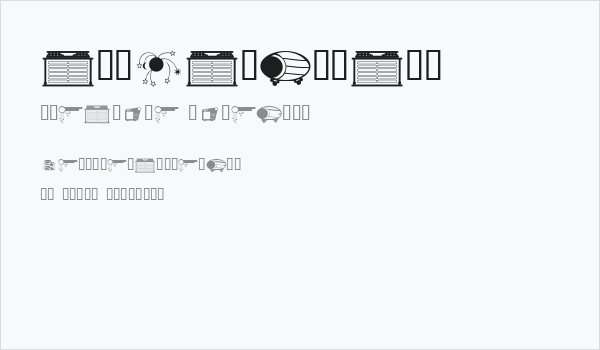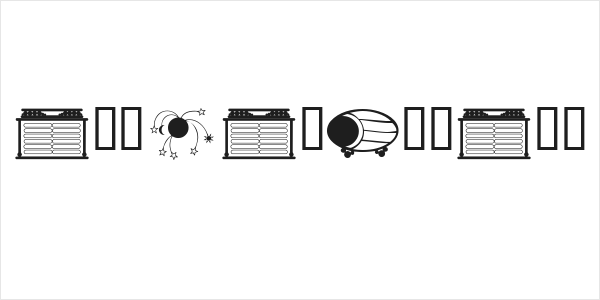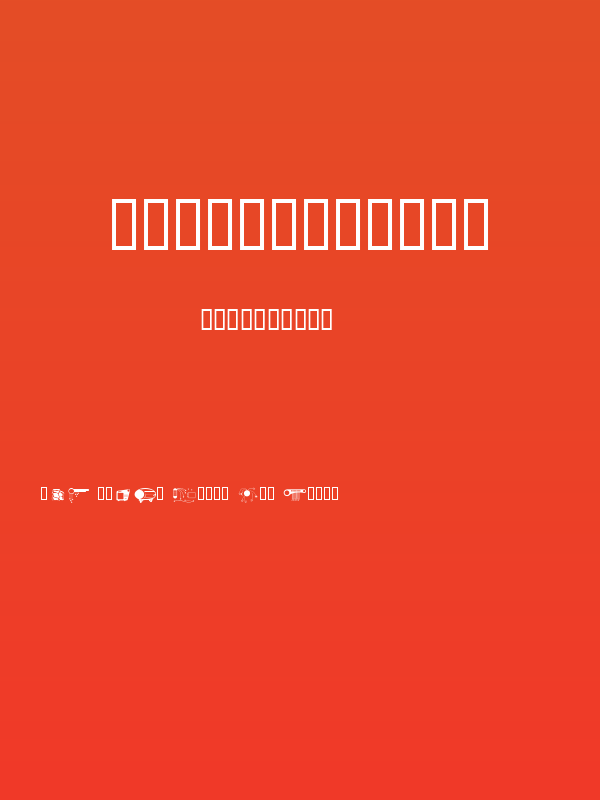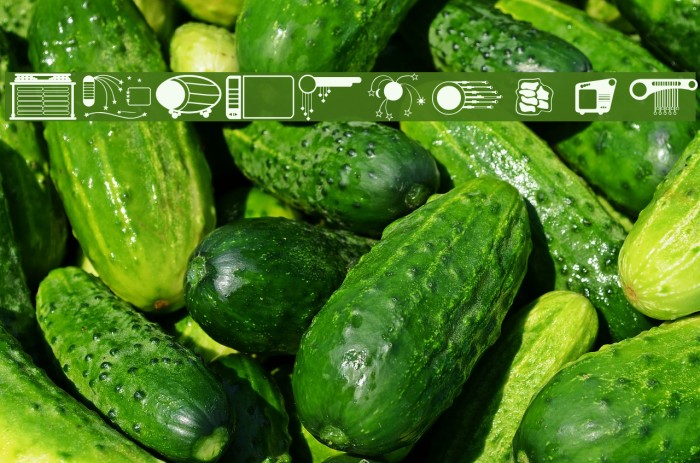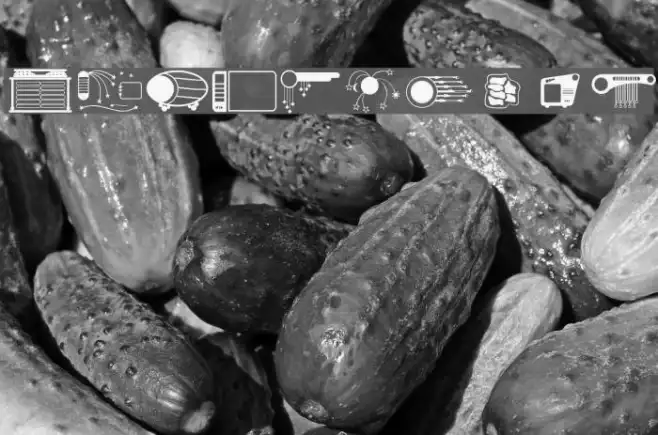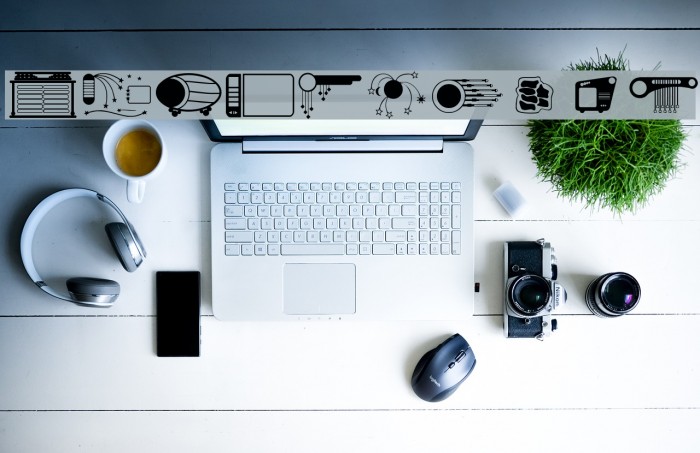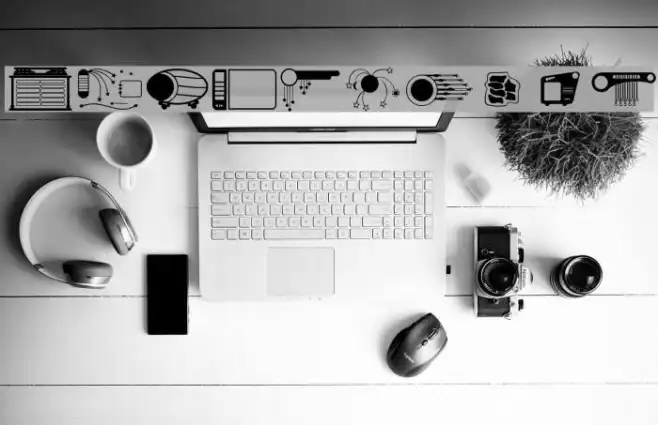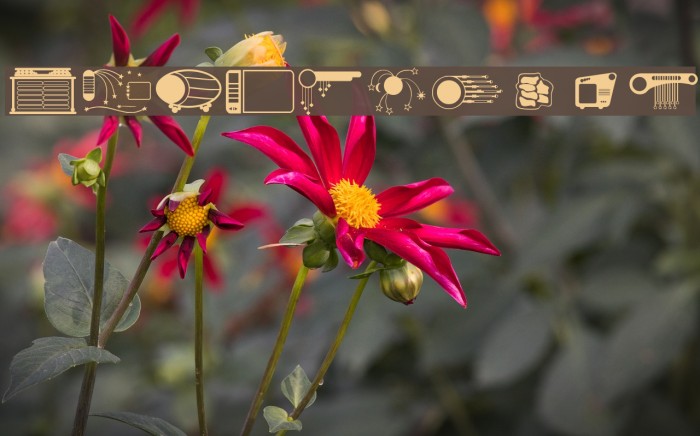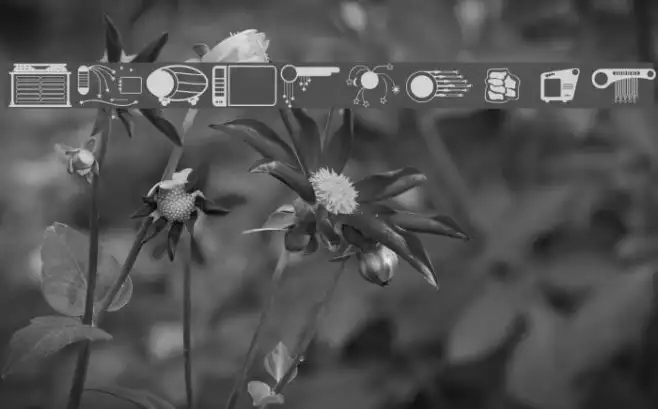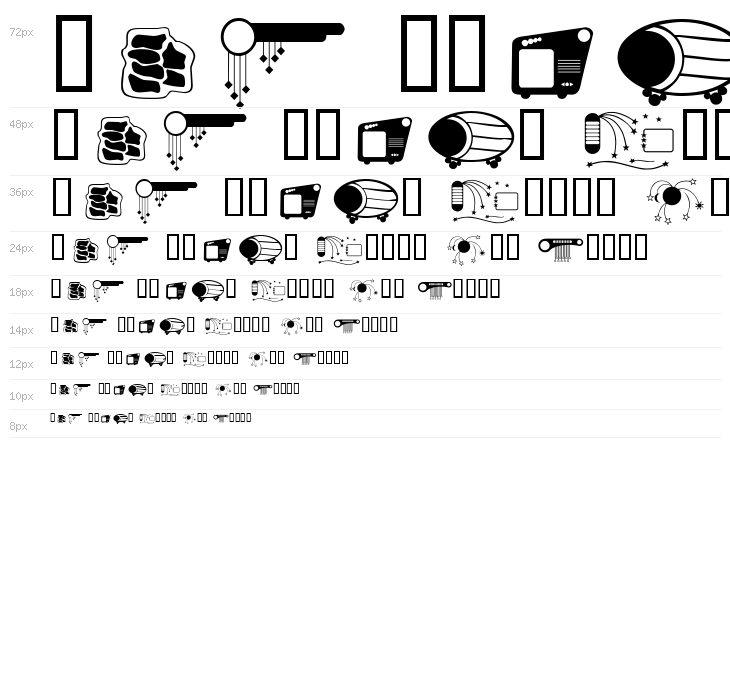
ap_fancynavs Font
ap_fancynavs Description
A decorative dingbat font featuring a variety of stylized, retro-futuristic vehicle and navigation-themed illustrations, including spaceships, satellites, and other imaginative transport icons. The glyphs are bold, detailed, and cartoon-like, with a playful and whimsical aesthetic.
| Overall Style | Decorative, Retro-Futuristic, Playful |
| Use Case | Icons, Decorative elements, Themed graphics |
| Proposed Projects | Themed party invitations, sci-fi posters, educational materials, children’s books, creative branding, and digital stickers. |